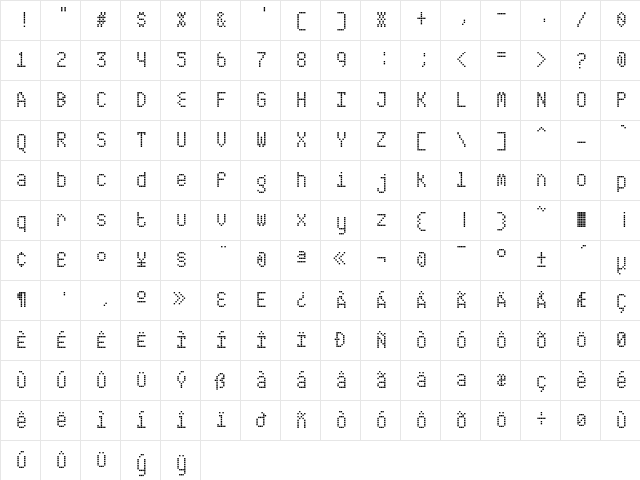
ABS 1
Design Context for ABS Typeface
ABS is a composed and adaptable typeface that performs quietly and consistently across a wide range of design contexts.